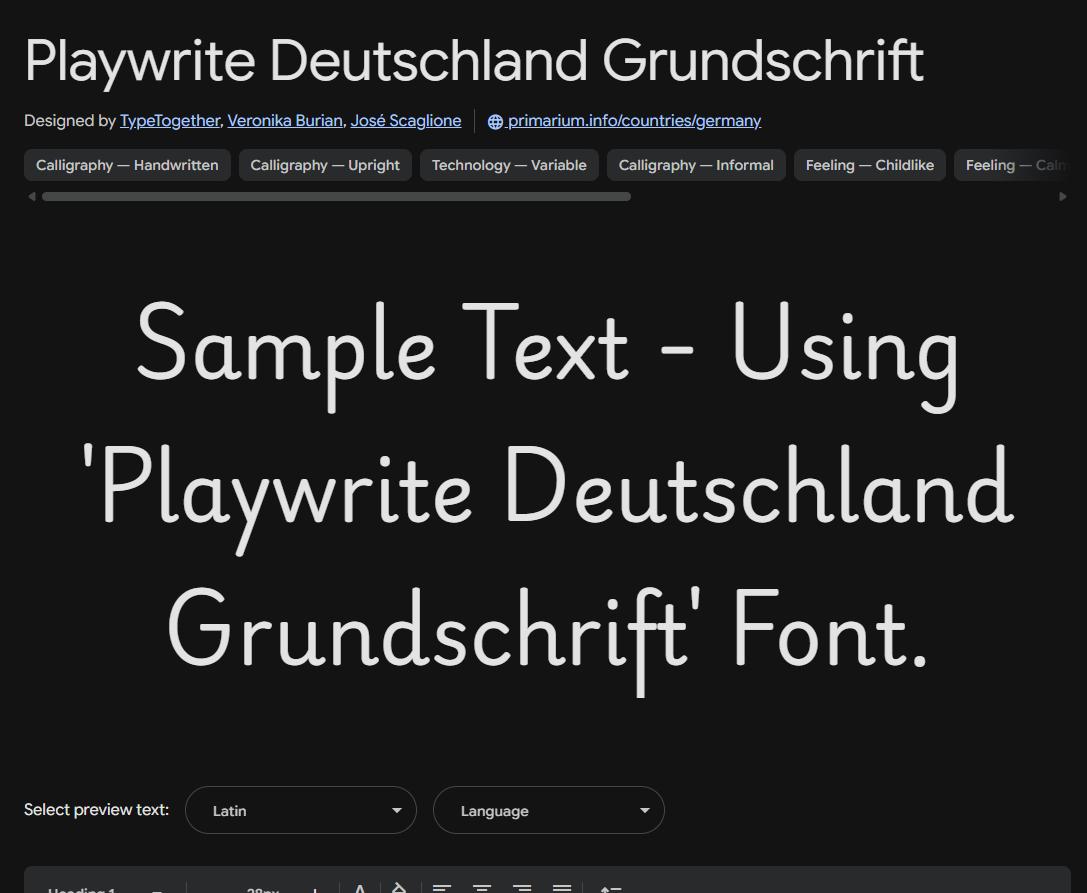
Playwrite Deutschland Grundschrift, a sophisticated collaborative release from TypeTogether founders Veronika Burian and José Scaglione, functions as a high-performance variable font designed to bridge the gap between traditional German pedagogical scripts and modern digital interfaces. Engineered with a single weight axis (wght), the typeface leverages advanced linear interpolation to provide a seamless spectrum of stroke densities that reflect the specific ductus and letterforms mandated by the Grundschrift educational standard. By integrating this skeleton-based design approach into a responsive web framework, the font optimizes optical clarity and legibility, utilizing variable technology to adapt to varying pixel densities while maintaining the integrity of the instructional handwriting model required for primary literacy development.
The Playwrite Deutschland Grundschrift font family represents a sophisticated synthesis of educational pedagogy and modern font engineering, bridging the gap between traditional Calligraphy - Handwritten origins and cutting-edge Technology - Variable frameworks. Designed specifically to mirror the simplified "Grundschrift" script used in German primary schools, this Calligraphy - Upright and Calligraphy - Informal specimen utilizes its variable axes to maintain a Feeling - Calm legibility while offering a Feeling - Playful and Feeling - Happy aesthetic essential for early literacy. Its unique visual identity manages to be simultaneously Feeling - Loud in its expressive, organic strokes and Feeling - Childlike in its approachability, avoiding the sterile perfection of standard geometric sans-serifs for a more textured, Feeling - Rugged finish. By integrating a Feeling - Vintage classroom charm with a high-performance glyph set, the typeface offers a semantically rich experience where the Feeling - Vintage nuances of digital ink meet the functional requirements of contemporary screen-based learning environments.
While the Playwrite Deutschland Grundschrift variable font, meticulously engineered by TypeTogether's Veronika Burian and José Scaglione, serves as a premier pedagogical tool for primary education, its fundamental "Grundschrift" DNA makes it unsuitable for high-stakes corporate legalities, financial interfaces, or high-density technical documentation. The typeface's simplified glyph construction and didactic stroke patterns lack the requisite formal authority and sophisticated kerning pairs required for professional information hierarchy, where the absence of traditional serifs or high-contrast terminals can induce cognitive fatigue in professional-grade reading environments. Furthermore, because its single-axis variability is optimized for scholastic legibility and motor-skill development rather than the complex structural rigidity needed for multi-layered UI/UX architecture, applying this script to medical data or enterprise analytics risks compromising accessibility and perceived reliability in environments where neutral, high-speed character recognition is a functional necessity.
Grundschrift features simplified, unjoined letterforms designed to bridge the gap between traditional printed block letters and fluid cursive handwriting. Its geometric construction mimics the pedagogical principles of the Hamburg model, ensuring that stroke thickness remains consistent across various optical sizes to maintain stroke integrity during digital rendering.
This script pairs most effectively with clean, neutral sans-serif typefaces to establish a structured and modern visual hierarchy. Utilizing a high cap-height ratio between the script and a grotesque sans-serif creates a distinct typographic contrast that improves information scanning speeds according to ocular tracking data.
While the font is highly legible for short passages, it is primarily intended for educational accents or decorative titles rather than dense, multi-page body copy. Reading speed metrics typically decrease when processing cursive-inspired glyph structures over long distances compared to traditional transitional serif faces optimized for horizontal flow.
The generous x-height of this font enhances readability at smaller sizes but requires designers to carefully increase the leading to avoid visual clutter. Technical analysis shows that a larger x-height to cap-height ratio necessitates an increased line-gap value to prevent vertical collisions between overlapping ascenders and descenders in the coordinate plane.
For optimal clarity on standard resolution displays, the font should generally be set at a minimum of 16 pixels to preserve its unique terminal details. At sizes below 12pt, the hinting profiles of the vector curves may struggle to align with the pixel grid, leading to unintended anti-aliasing artifacts and decreased legibility.
As a specialized regional typeface, it includes full character support for all German diacritics including the ä, ö, ü, and the essential Eszett character. The inclusion of the capital Eszett (ẞ) ensures compliance with the Council for German Orthography's latest Unicode character encoding standards for modern typographic systems.
To ensure the script appears balanced and professional, the line height should be set significantly wider than the standard browser default of 1.2. Adjusting the CSS line-height property to at least 1.5 allows the extended vertical metrics and terminal flourishes to occupy their designated bounding boxes without overlapping neighboring lines.
This font is an excellent choice for brands focusing on education, childhood development, or personal craftsmanship due to its approachable and friendly aesthetic. Its monolinear stroke design provides excellent brand scalability across high-density displays (HiDPI) where intricate serif details often fail to render clearly at small scales.
The variable weight axis allows for smooth transitions and fine-tuning of the visual weight to ensure readability against dark or vibrant backgrounds. Leveraging the Weight (wght) axis in CSS enables developers to compensate for "light bleed" on OLED screens, where bright text on black backgrounds often appears thicker than intended due to pixel luminance.
The font family provides several OpenType features that allow users to swap specific character variations to suit different educational standards or aesthetic preferences. By activating the salt or ss01 tags in the font's lookup table, designers can toggle between regional variations of specific glyphs to achieve localized pedagogical accuracy.